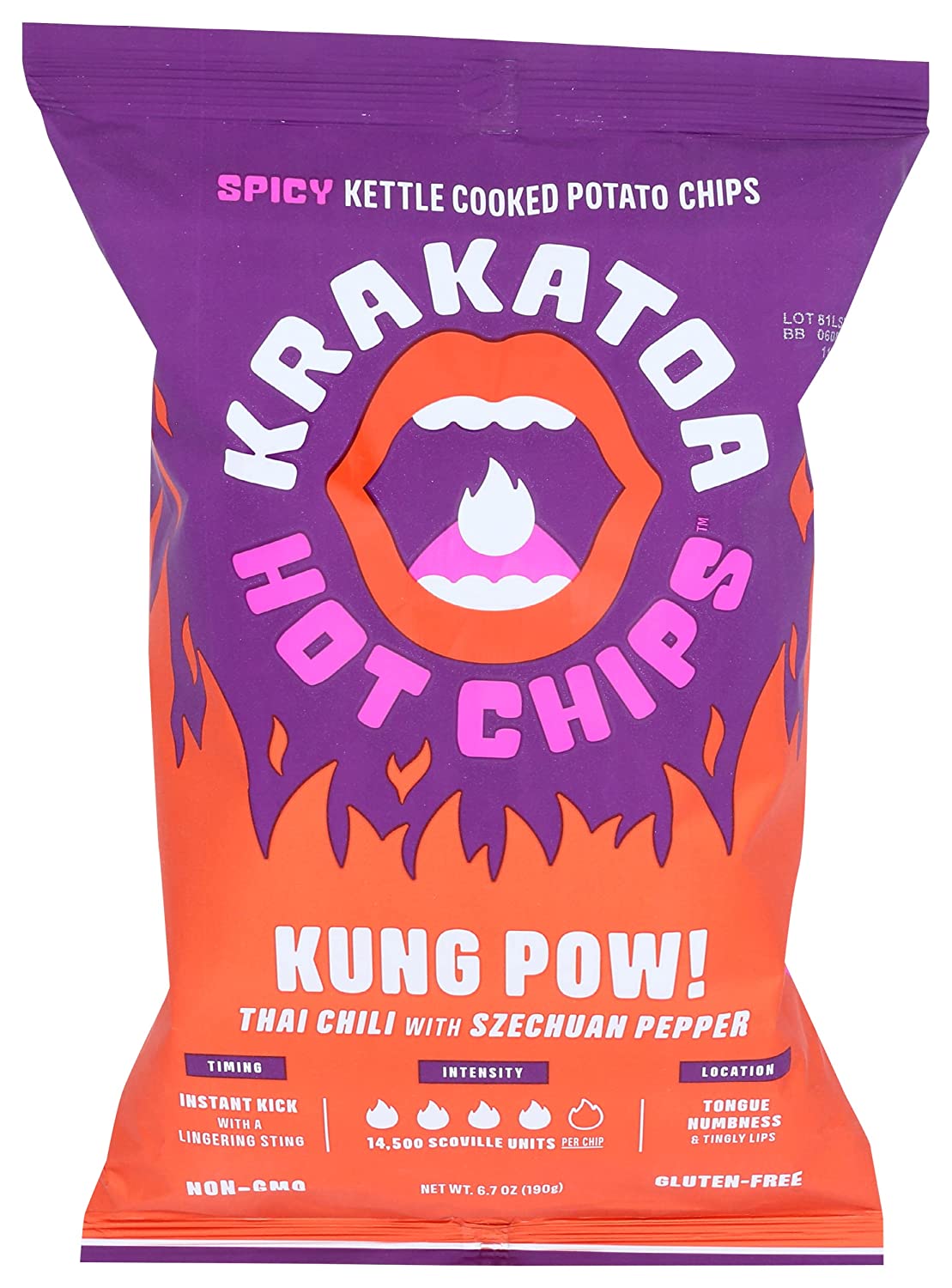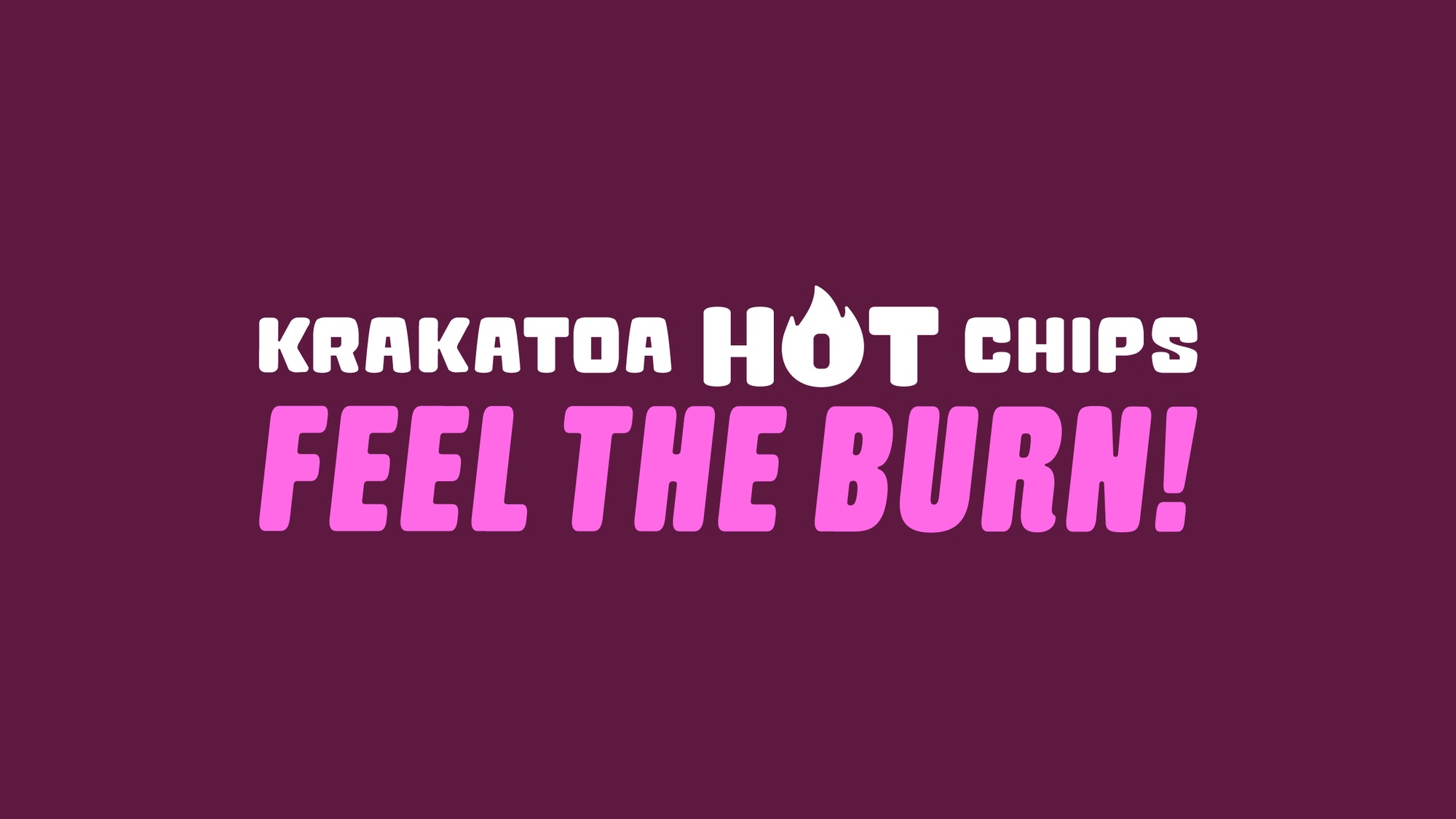
Rounded (wood?) San Serif & Display: Snack Packaging
Fun combo of fonts that Im not familar with. Anyone knows whats used here? Design is by Helms Workshop.
KRAKATOA HOT CHIPS is set in
Atama Simple
FEEL THE BURN! is set in
Goudar